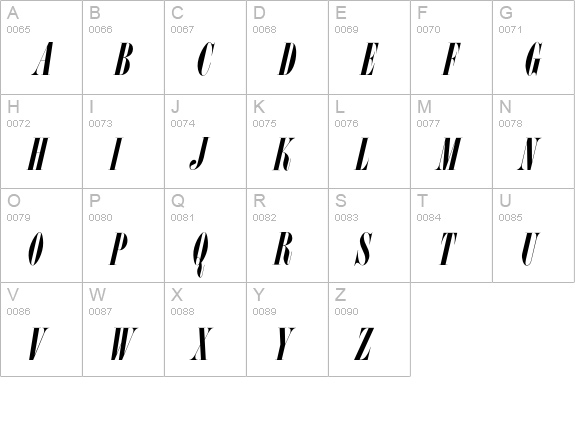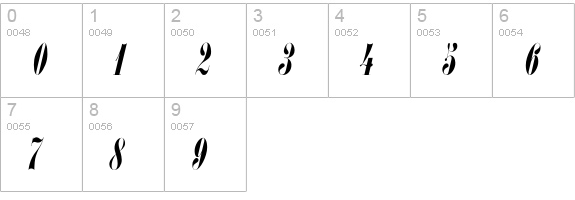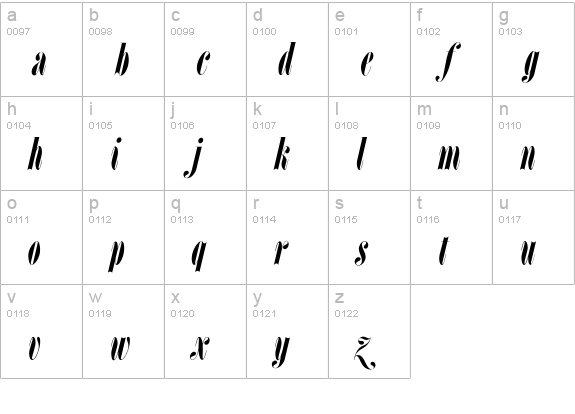
LSCCondensedItalic Font Details
LSCCondensedItalic font is a sleek and stylish typeface that exudes sophistication and modernity. Its condensed design gives it a unique edge, making it perfect for projects that require a contemporary and elegant touch. The italicized style adds a touch of flair and elegance, making it suitable for a wide range of design applications. The best part? LSCCondensedItalic font is completely free to download at FontsMarket.com. This means you can elevate your designs without breaking the bank. Whether you're working on branding materials, digital designs, or print projects, this font will surely make a statement. Don't miss out on this fantastic opportunity to enhance your projects with the stunning LSCCondensedItalic font, available for free download now!